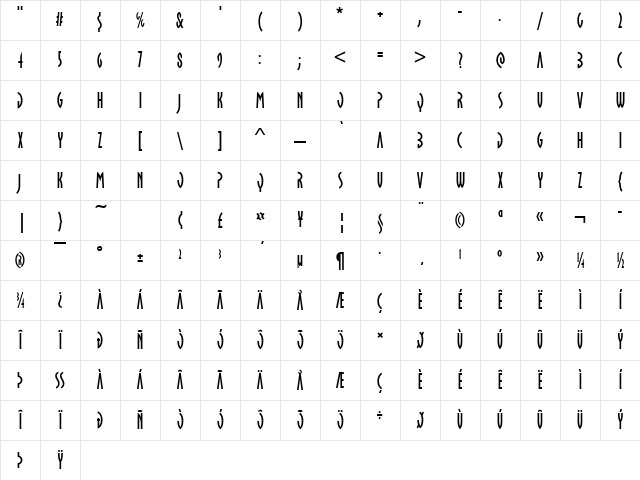
Becker Oklahoma Open Regular
Design Context for Becker Oklahoma Open
Becker Oklahoma Open is a composed and adaptable typeface that performs quietly and consistently across a wide range of design contexts.
Pro Tip: Use Becker Oklahoma Open in both headline and body roles to test its range before committing to a single application.